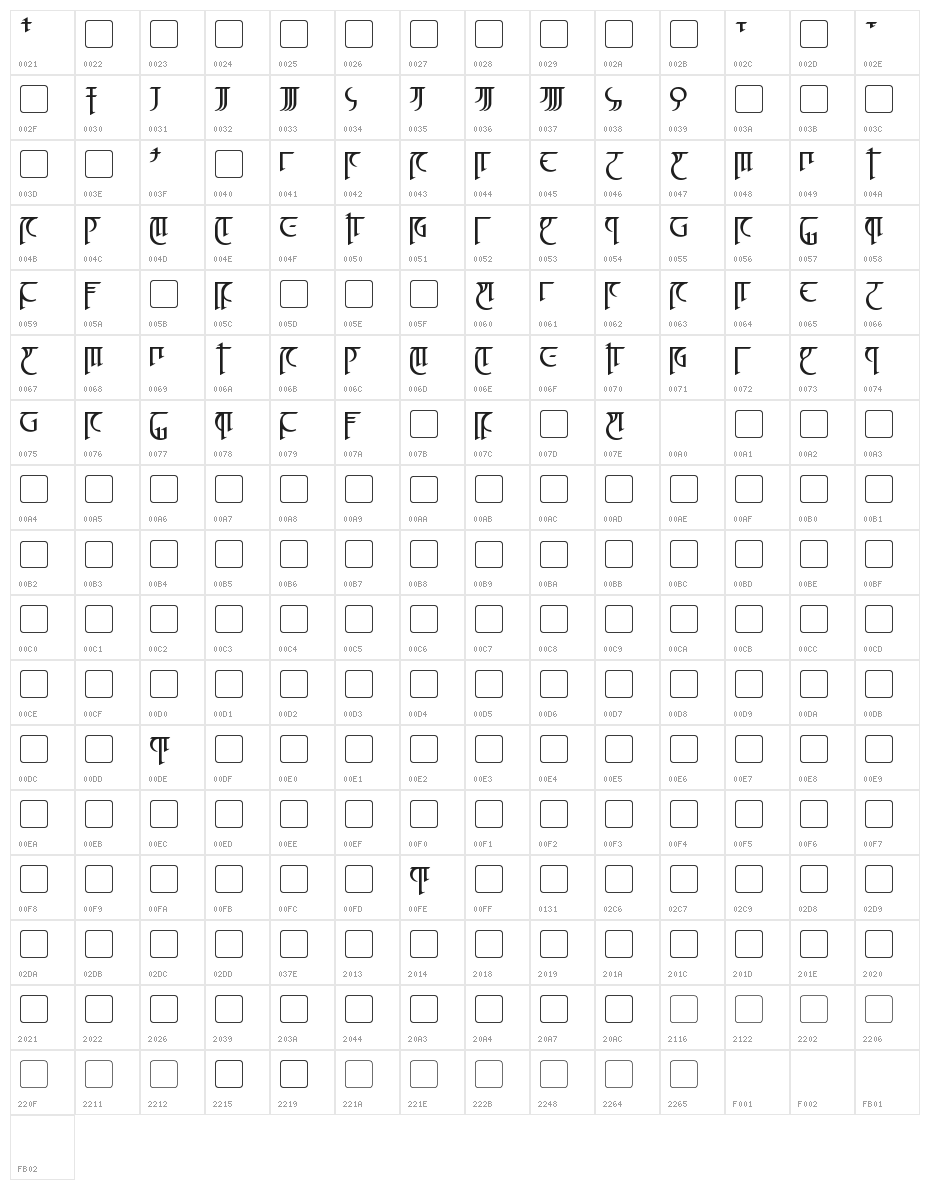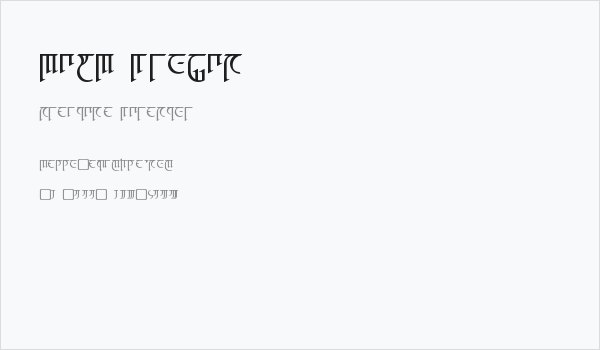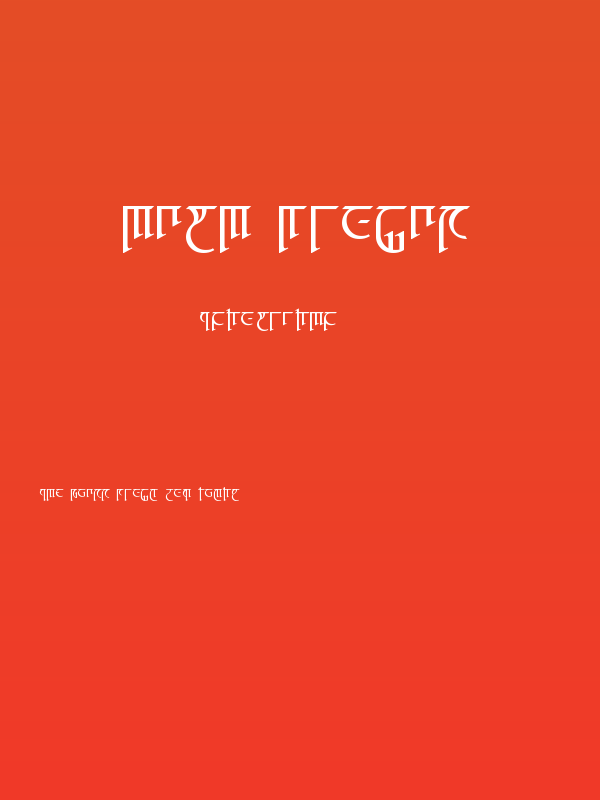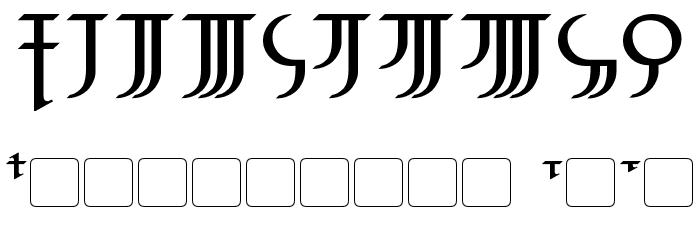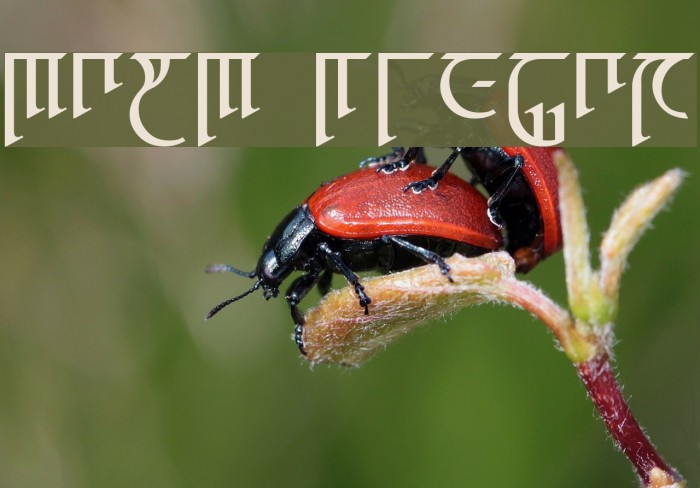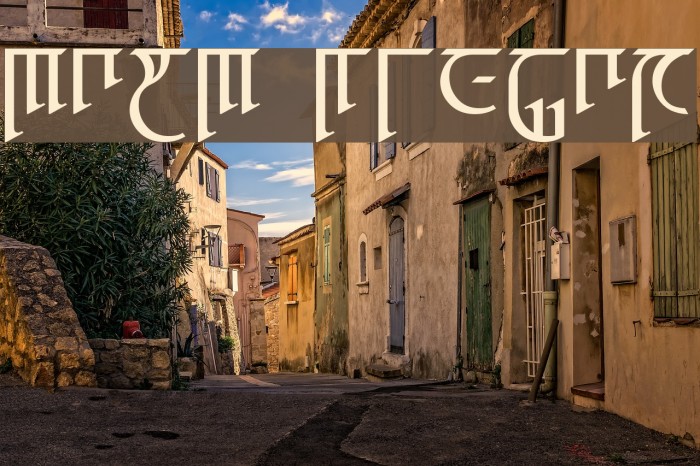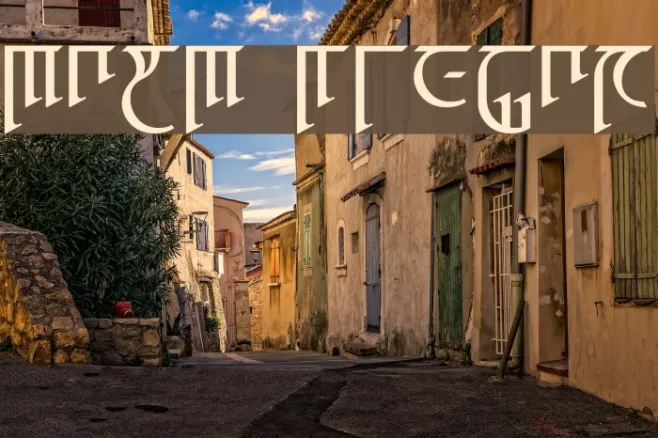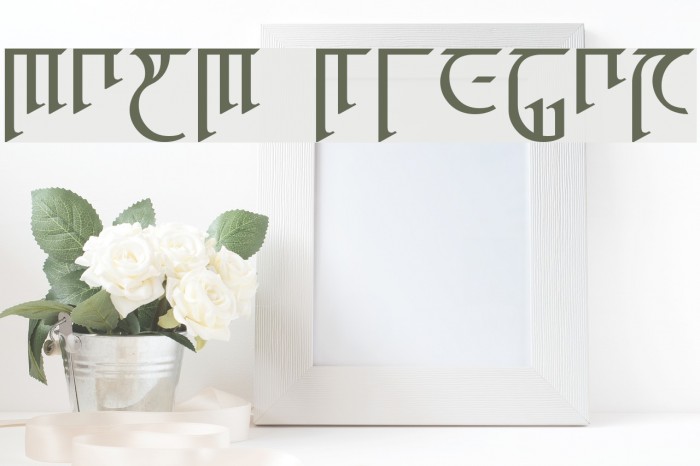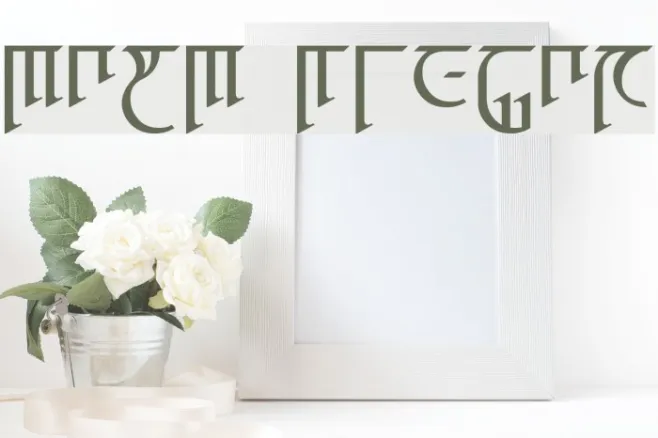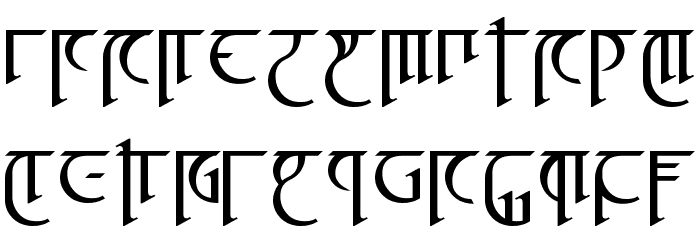
High Drowic Font
High Drowic Description
This font exhibits a unique and decorative style, characterized by its sharp, angular lines and intricate detailing. The characters are designed with a high level of contrast, featuring thick vertical strokes and thin horizontal lines. The overall appearance is reminiscent of ancient scripts, giving it a mystical and enigmatic feel. The uppercase and lowercase letters maintain a consistent design language, with the uppercase being more elaborate. The numerals and special characters follow the same stylistic cues, ensuring a cohesive look across all elements. This font is ideal for projects that require a touch of fantasy or historical ambiance.
HIGH-DROWIC UPPERCASE
HIGH-DROWIC LOWERCASE
HIGH-DROWIC OTHER CHARS
| Proposed Projects | Suitable for fantasy-themed designs, historical reenactments, game titles, book covers, and decorative posters. |